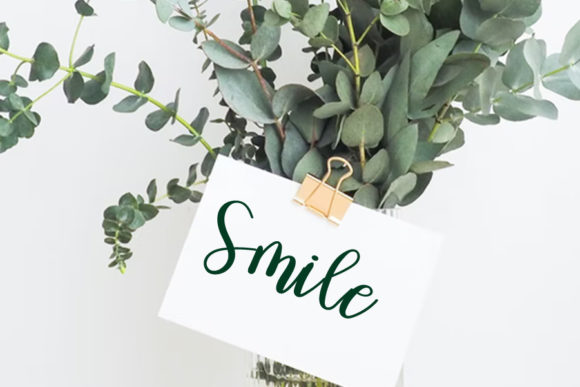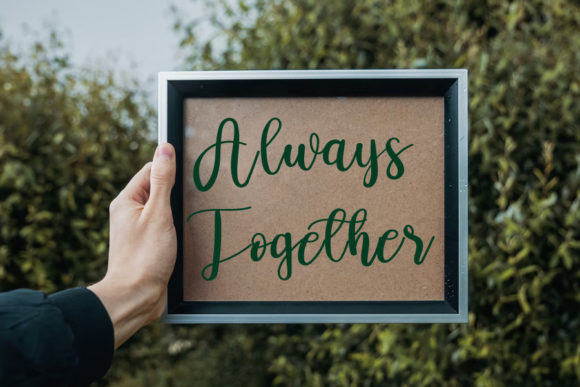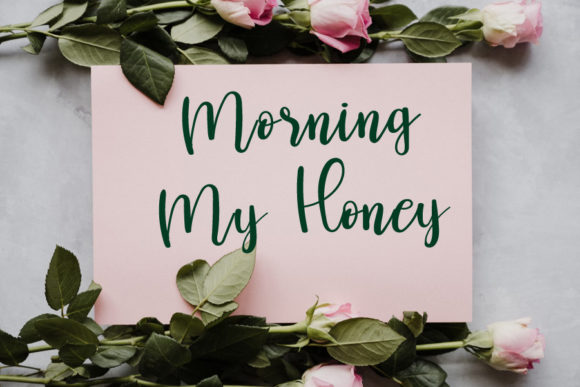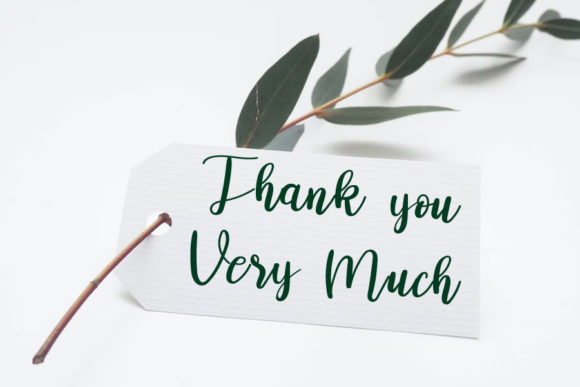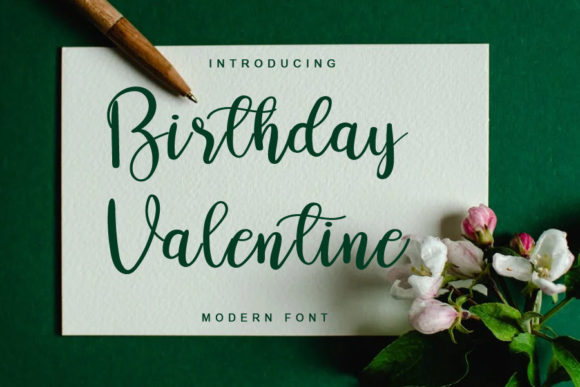
Introducing Birthday Valentine Font: The Ultimate Choice for Chic and Stylish Creations
Are you a designer, crafter, or DIY enthusiast looking for a font that exudes elegance and sophistication? Look no further than the Birthday Valentine Font, a chic and stylish script font that’s perfect for a wide range of creative projects. In this article, we’ll dive into the world of Birthday Valentine Font, exploring its unique features, uses, and benefits.
What is Birthday Valentine Font?
Birthday Valentine Font is a beautifully crafted script font that boasts a distinct and fashionable look. Its unique design makes it an ideal choice for various creations, from letterheads and titles to stationery and more. Whether you’re working on a personal project or a professional assignment, this font is sure to impress.
Key Features of Birthday Valentine Font
- Unique and Distinctive Design: Birthday Valentine Font features a one-of-a-kind design that sets it apart from other fonts. Its stylish and elegant look makes it perfect for projects that require a touch of sophistication.
- Versatility: This font is incredibly versatile and can be used for a wide range of projects, including letterheads, titles, stationery, and more.
- Easy to Read: Despite its stylish design, Birthday Valentine Font is easy to read, making it perfect for both digital and print projects.
- High-Quality: This font is of exceptionally high quality, ensuring that it will look great in any project.
Uses of Birthday Valentine Font
Birthday Valentine Font is an incredibly versatile font that can be used for a wide range of projects, including:
- Stationery: Create beautiful and stylish stationery, including greeting cards, invitations, and more.
- Letterheads: Add a touch of elegance to your letterheads and make a lasting impression on your clients.
- Titles and Headings: Use Birthday Valentine Font to create stunning titles and headings for your projects, including brochures, posters, and more.
- DIY Projects: This font is perfect for DIY enthusiasts who want to add a personal touch to their projects, including scrapbooking, journaling, and more.
Benefits of Using Birthday Valentine Font
Using Birthday Valentine Font offers a range of benefits, including:
- Instant Recognition: This font’s unique design ensures instant recognition and sets your project apart from others.
- Professional Look: Birthday Valentine Font gives your project a professional and polished look, making it perfect for businesses and individuals alike.
- Time-Saving: With Birthday Valentine Font, you can create stunning projects in no time, saving you time and effort.
Tips for Using Birthday Valentine Font
Here are some tips for using Birthday Valentine Font:
- Pair it with Other Fonts: Experiment with pairing Birthday Valentine Font with other fonts to create a unique and stylish look.
- Use it for Titles and Headings: This font is perfect for titles and headings, so use it to create stunning headings for your projects.
- Experiment with Colors: Try out different colors with Birthday Valentine Font to create a look that’s uniquely yours.
In conclusion, Birthday Valentine Font is a chic and stylish script font that’s perfect for designers, crafters, and DIY enthusiasts. Its unique design, versatility, and ease of use make it an ideal choice for a wide range of creative projects. Whether you’re working on a personal project or a professional assignment, this font is sure to impress. So why wait? Download Birthday Valentine Font today and start creating stunning projects that will leave a lasting impression.